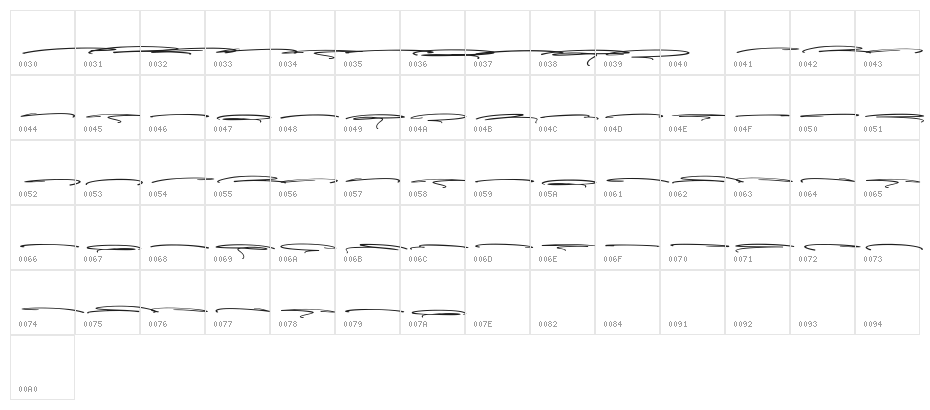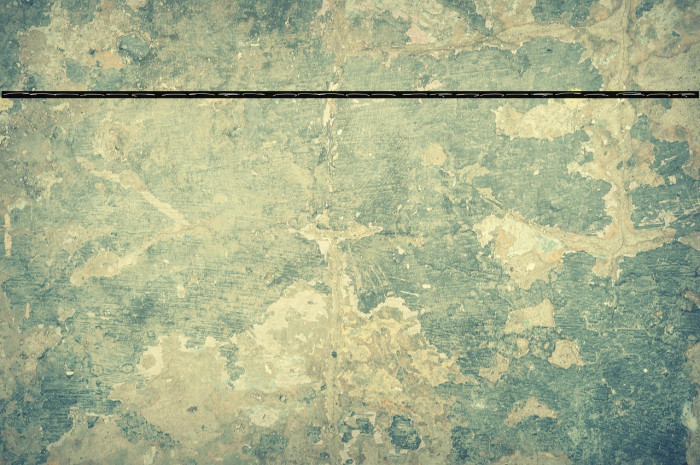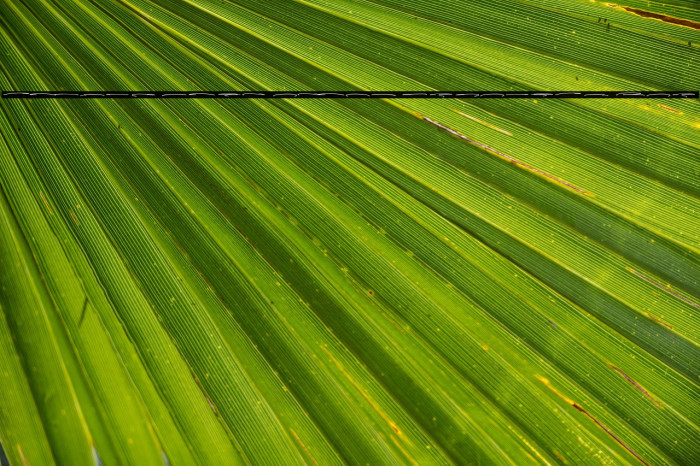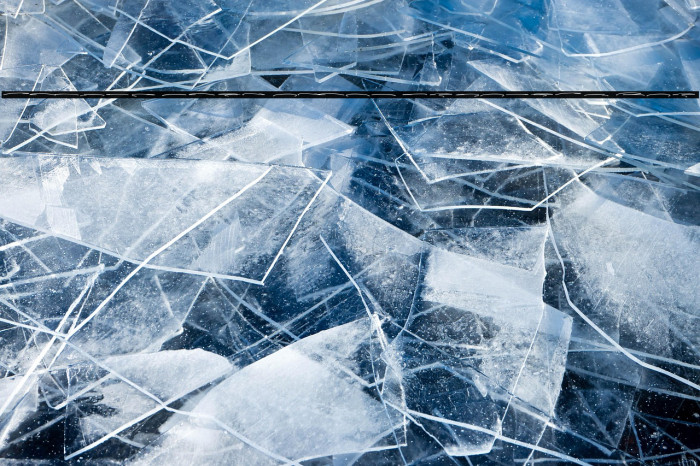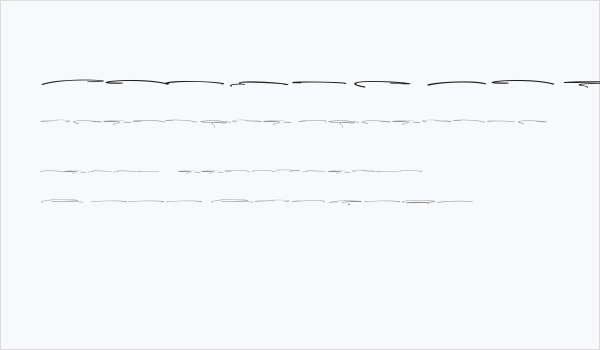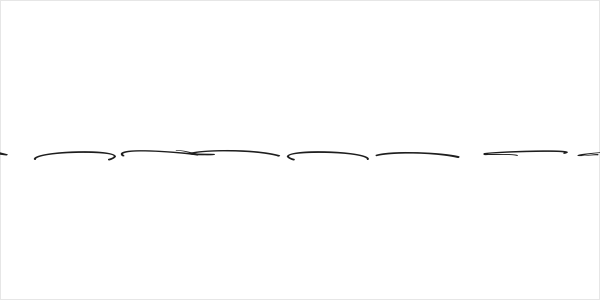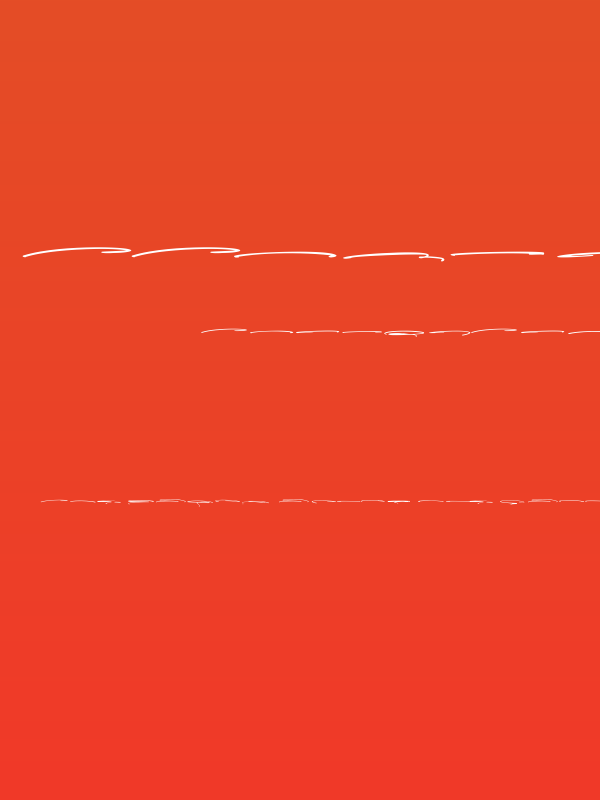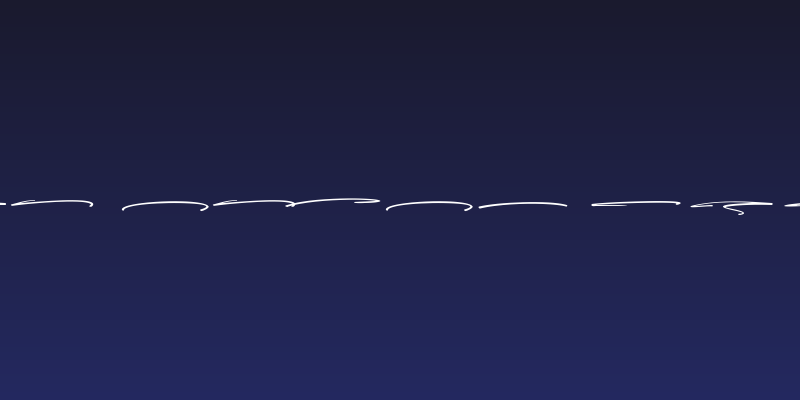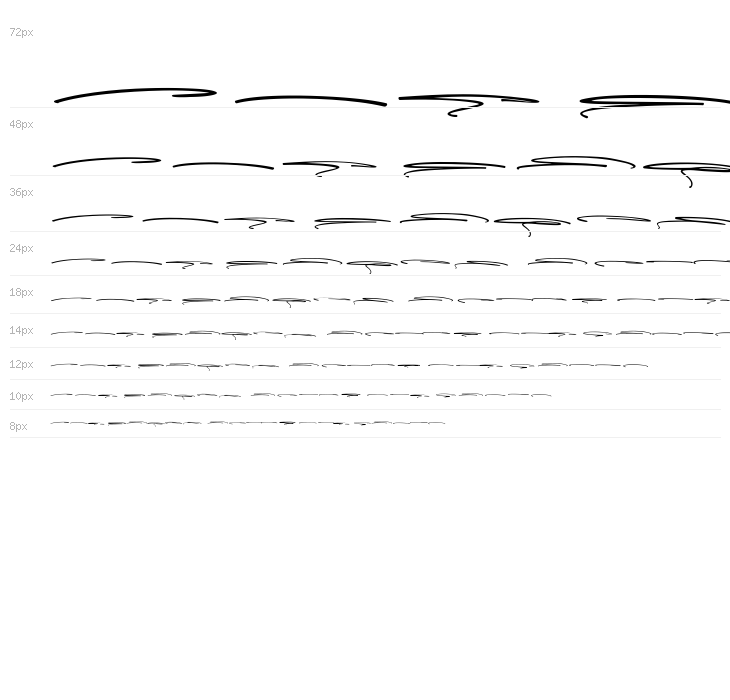
Taylor Hand Swash PERSONAL USE Font
Taylor Hand Swash PERSONAL USE Description
This font features a unique, handwritten style with a playful and artistic flair. Each character is crafted with a fluid, continuous stroke that mimics the natural flow of handwriting. The letters are slightly slanted, adding a dynamic and casual feel. The strokes vary in thickness, providing a sense of movement and energy. This font is perfect for projects that require a personal touch, such as invitations, greeting cards, or creative branding. Its distinctive style makes it stand out, while maintaining readability.
| Use Case | Logos, Headlines, Personal projects |
| Proposed Projects | Ideal for invitations, greeting cards, creative branding, and personal projects. |